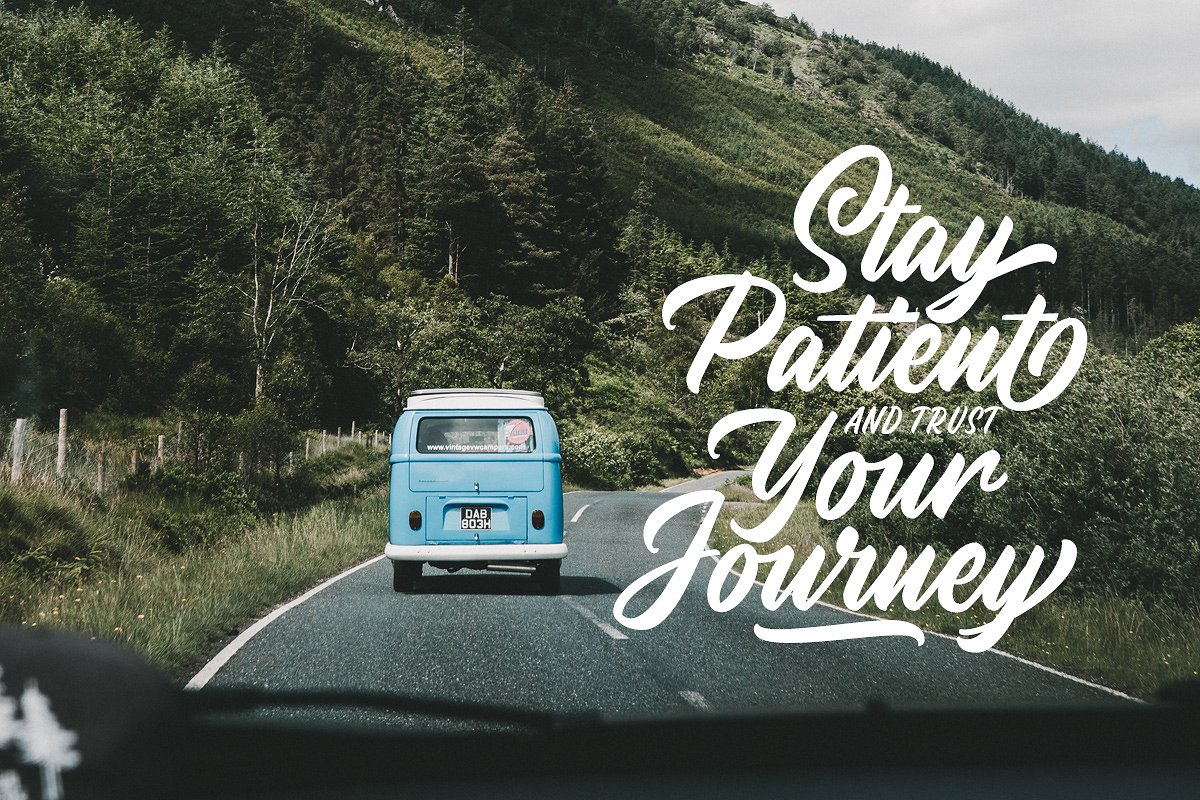
Youther Script Font
A brush layered font duo written with soft hand to produce a high quality font, designed and shared by Letterhend. Introducing Youther Font. Youther is a font duo with layered style. Yes, you can make a fancy typography only with this fonts, without any plugin or action! This font family contain the fabulous script and also comes with caps font. Youther is perfect to be used as logotype, badge and label! This has many opentype features like ligature, stylistic alternate, contextual alternate, swash, etc and support multi language.